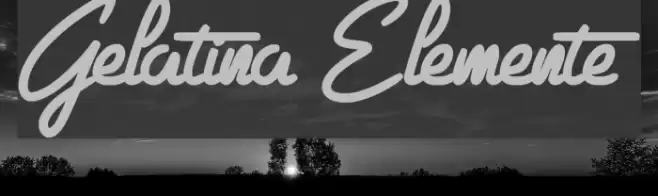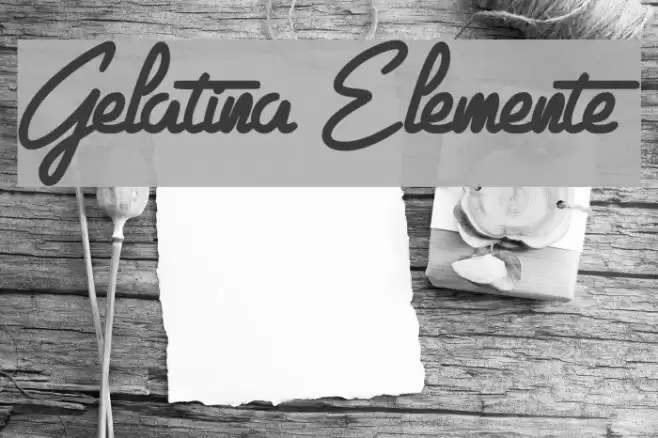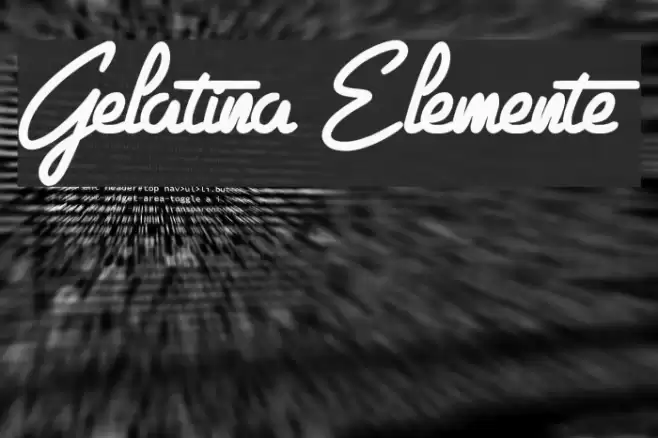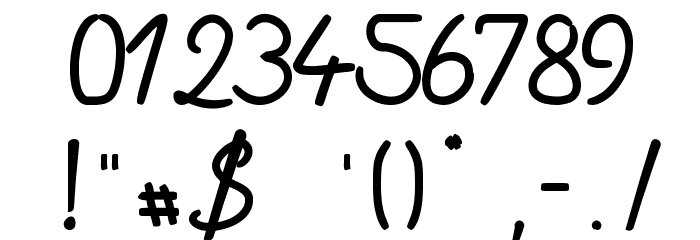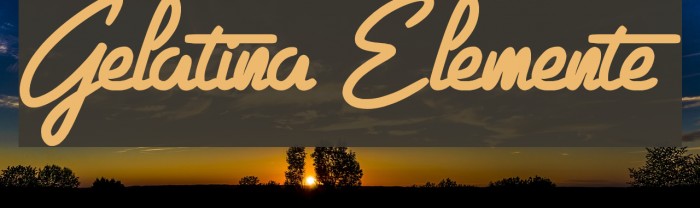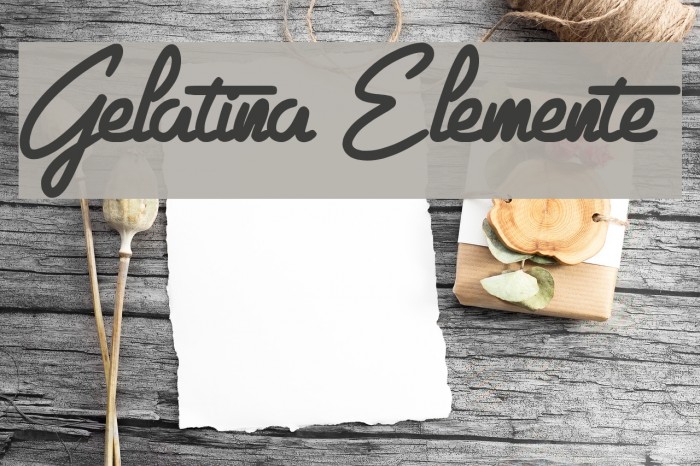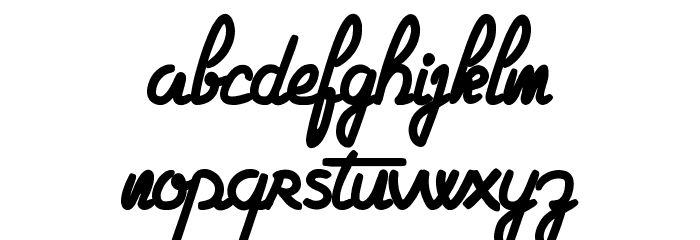
Gelatina Elemente Font
Gelatina Elemente Description
This font features a bold, cursive style with a modern flair. The uppercase letters are characterized by their flowing, interconnected strokes, creating a sense of movement and elegance. The lowercase letters maintain a consistent style, with smooth curves and a slightly playful appearance. The numerals are clear and legible, matching the overall aesthetic of the font. Special characters are designed to complement the letters, maintaining the same fluidity and boldness. This font is perfect for projects that require a touch of sophistication and creativity.
A bold, cursive font with a modern and elegant style from Uncategorized fonts.
- Proposed Projects: Ideal for branding, invitations, greeting cards, and creative headlines.
- Use Case: Logos, Headlines, Invitations